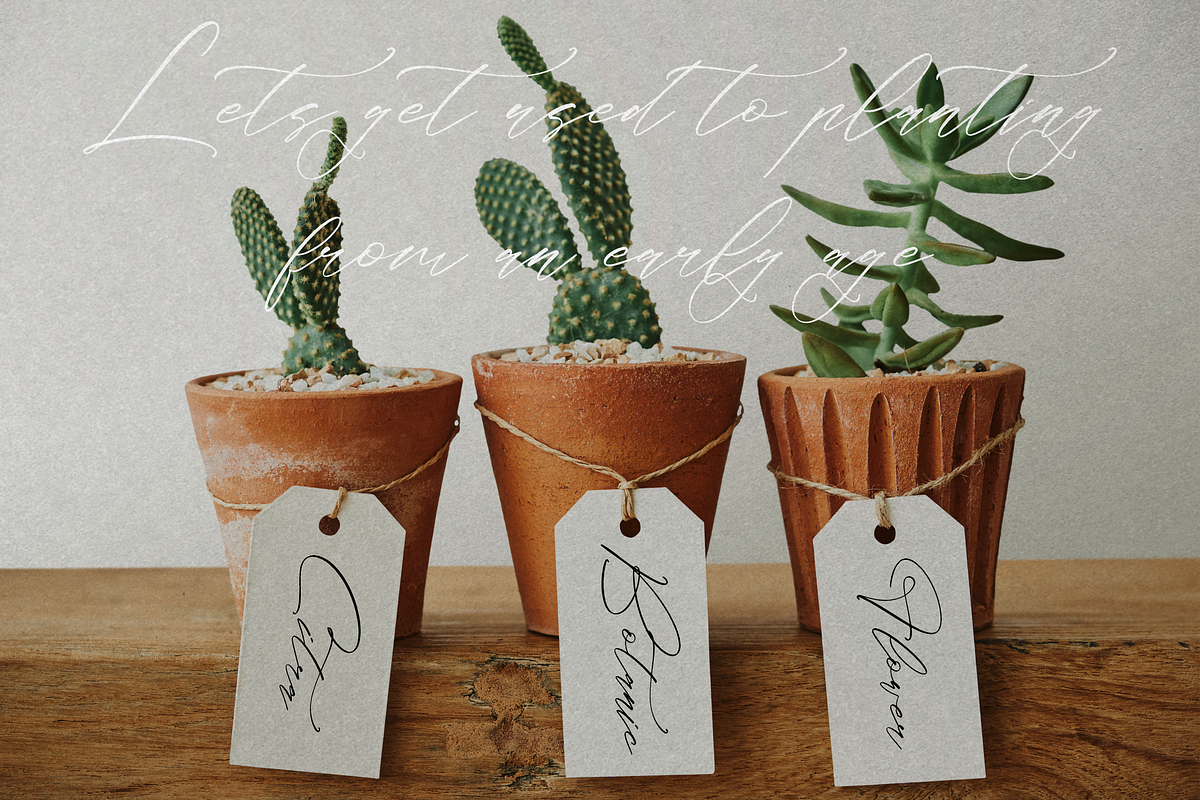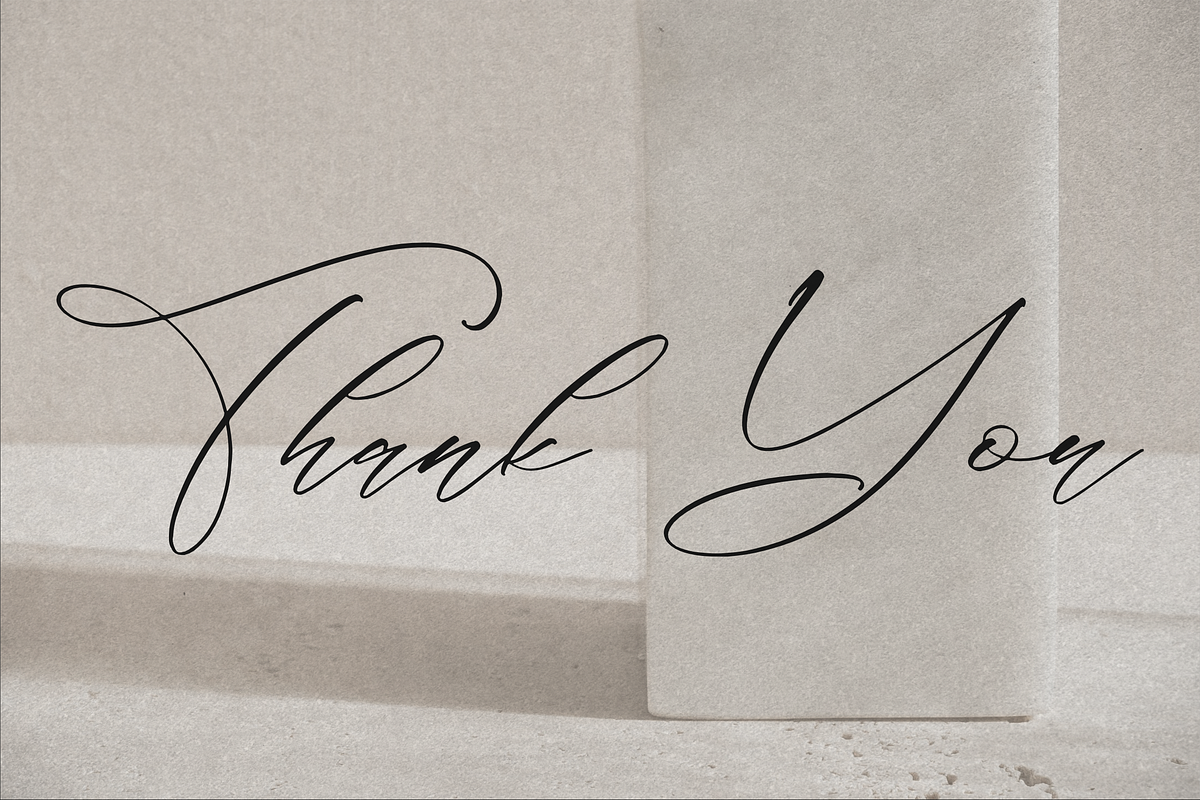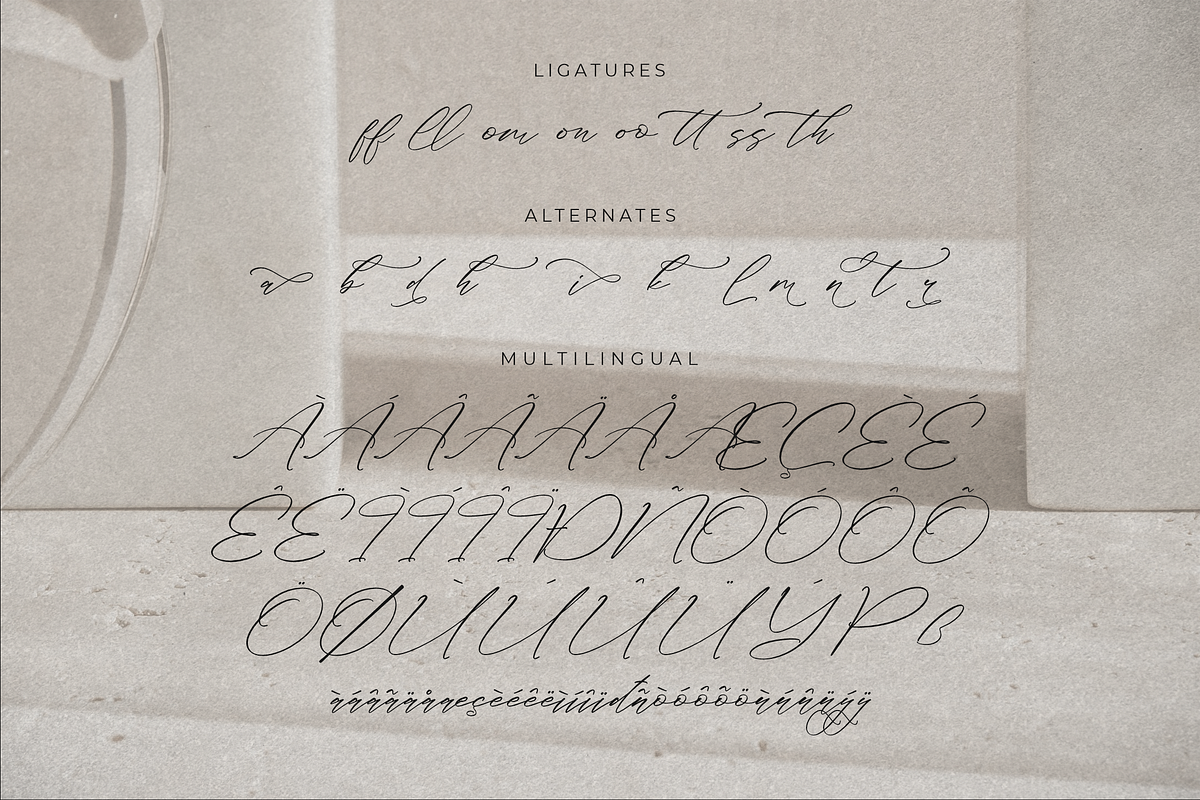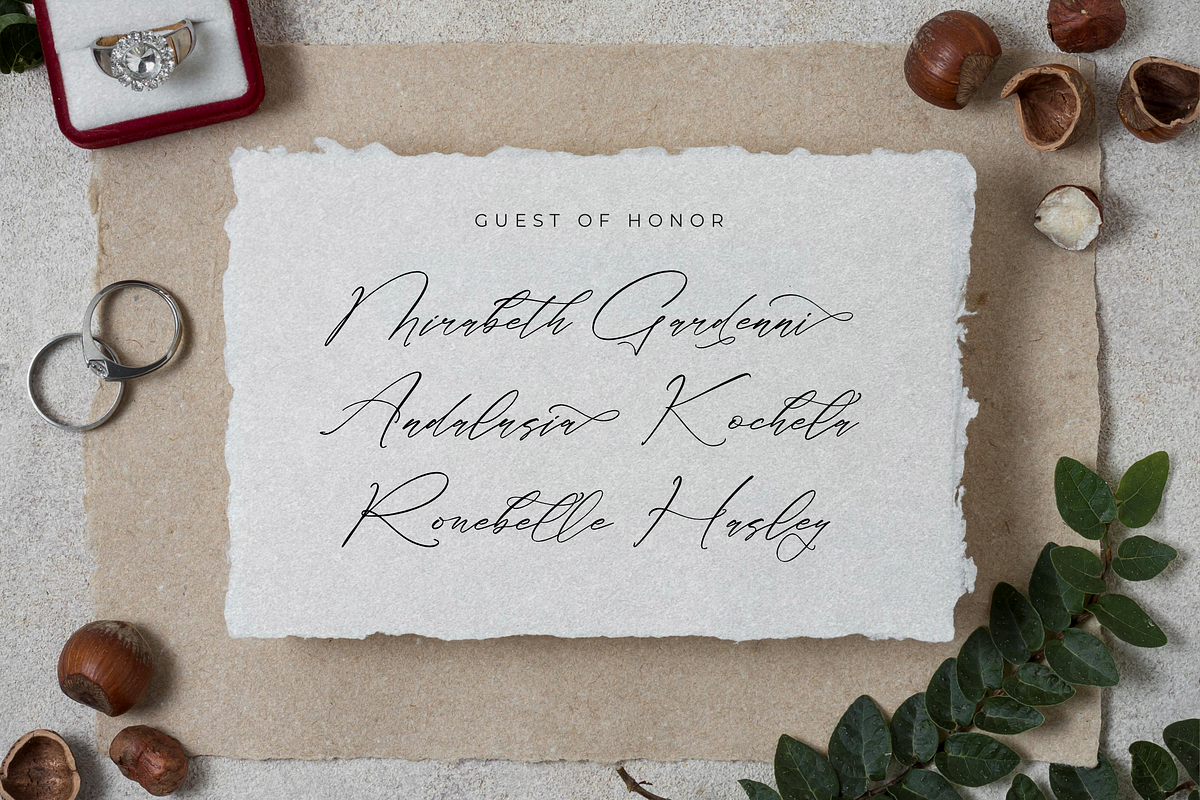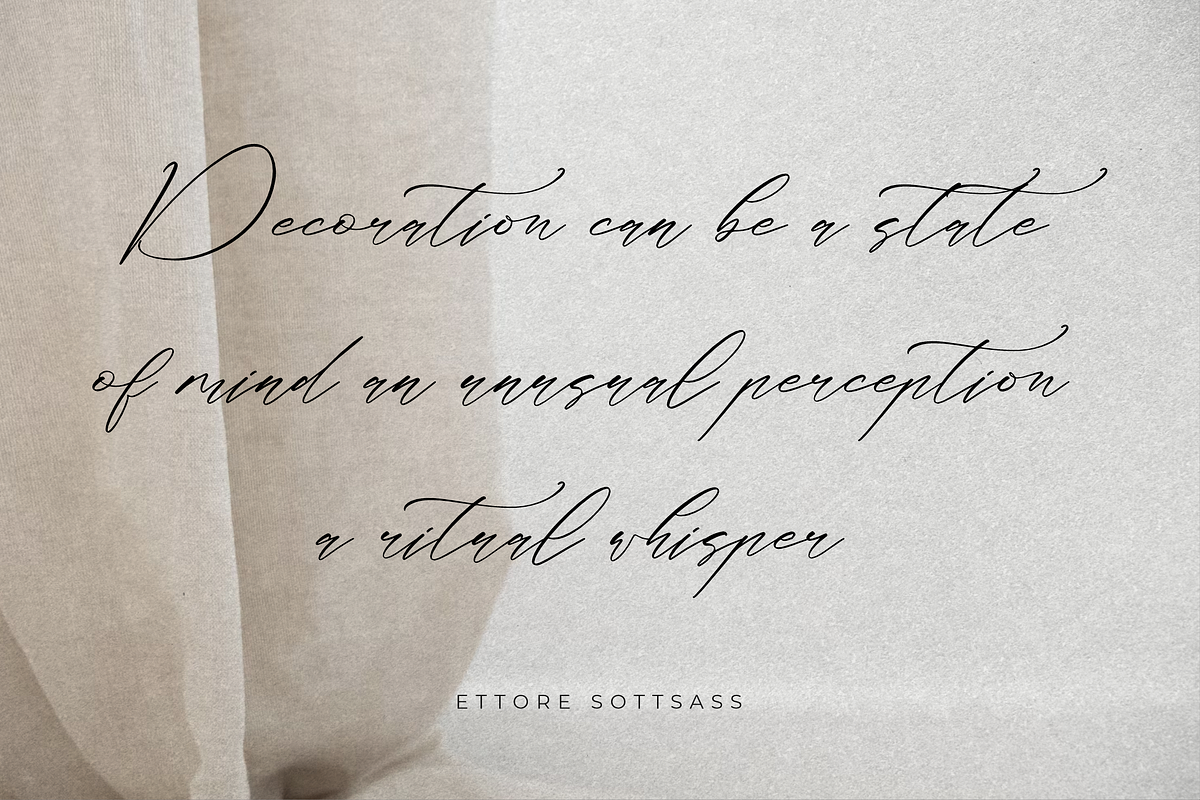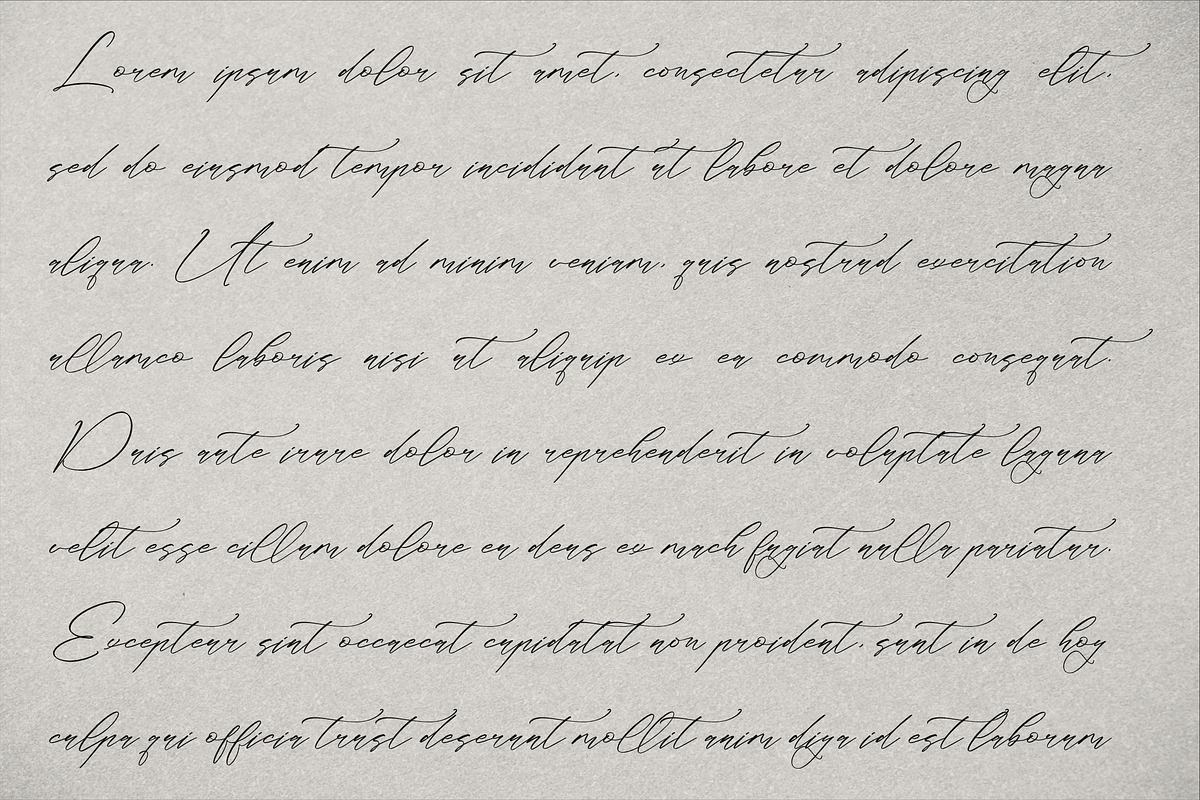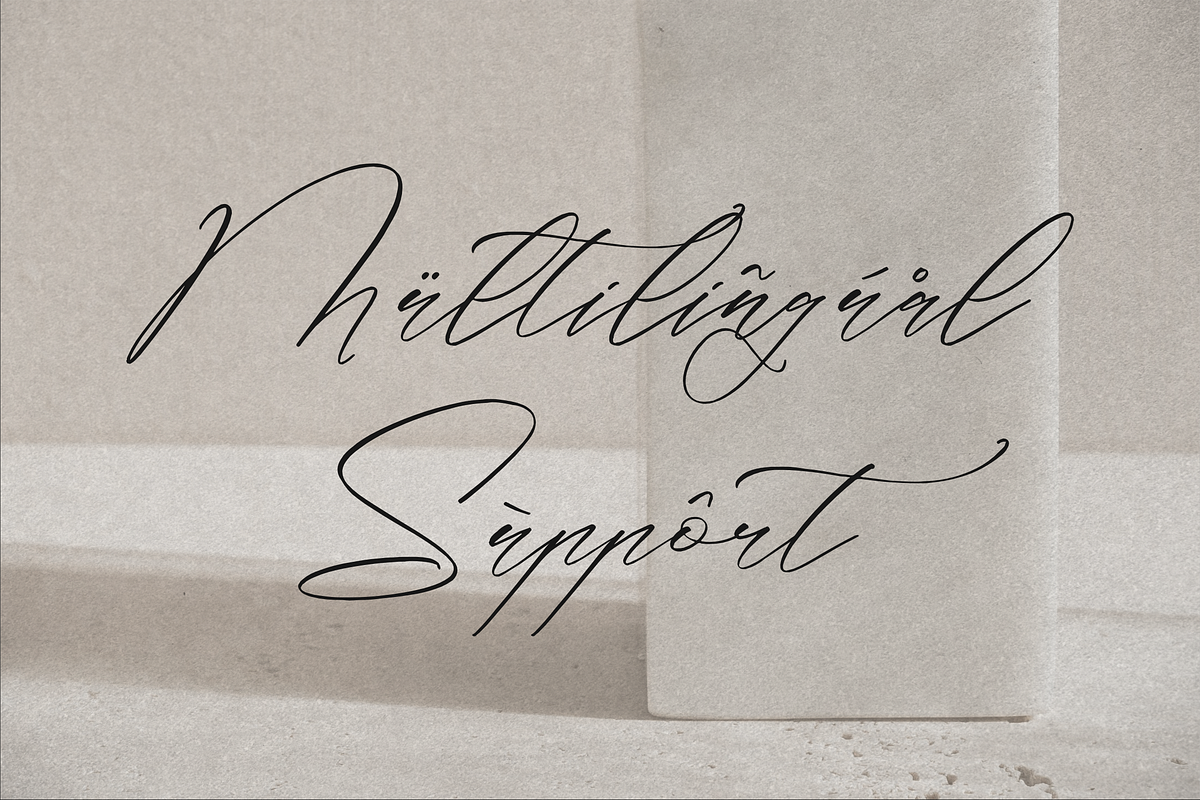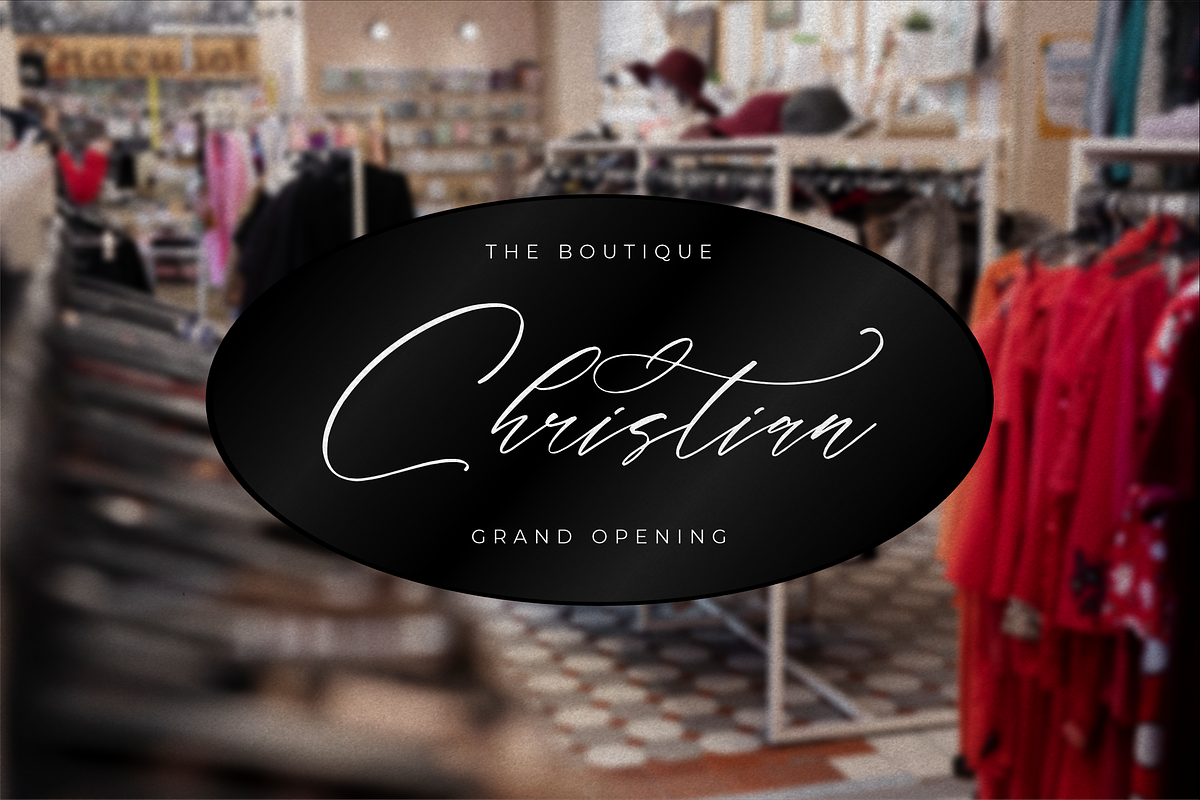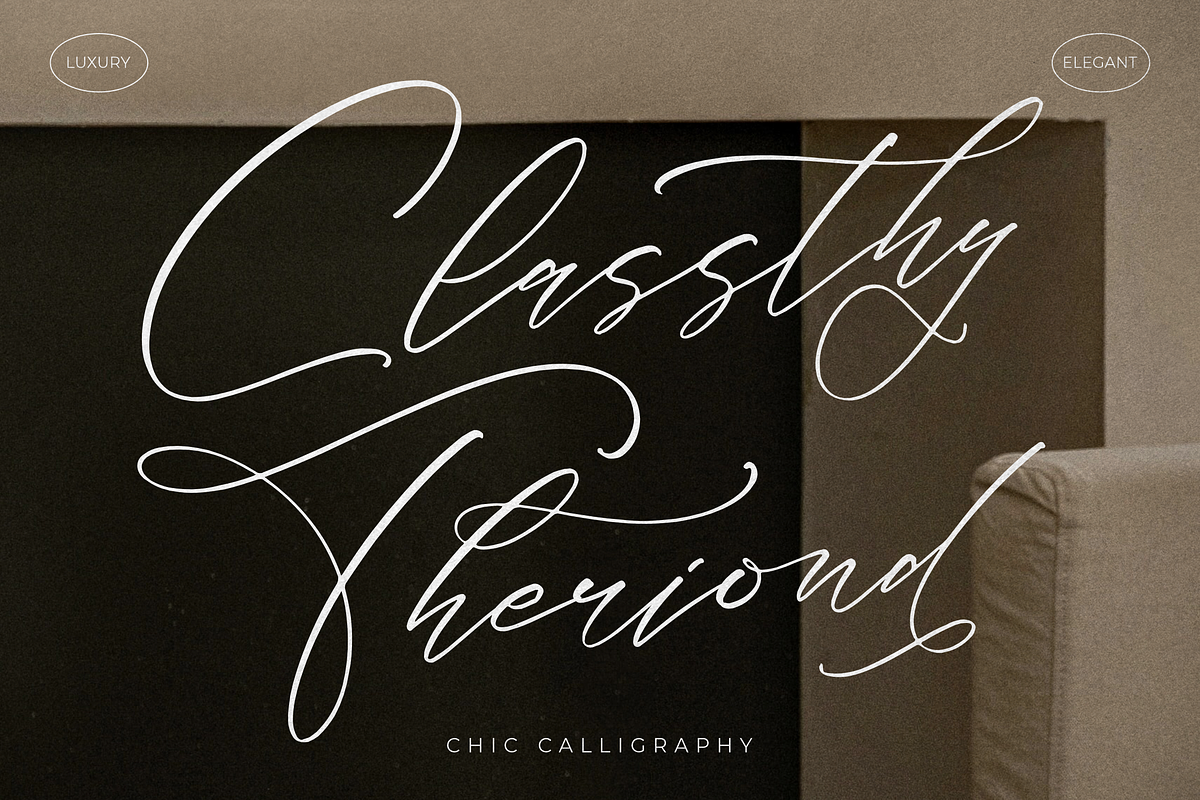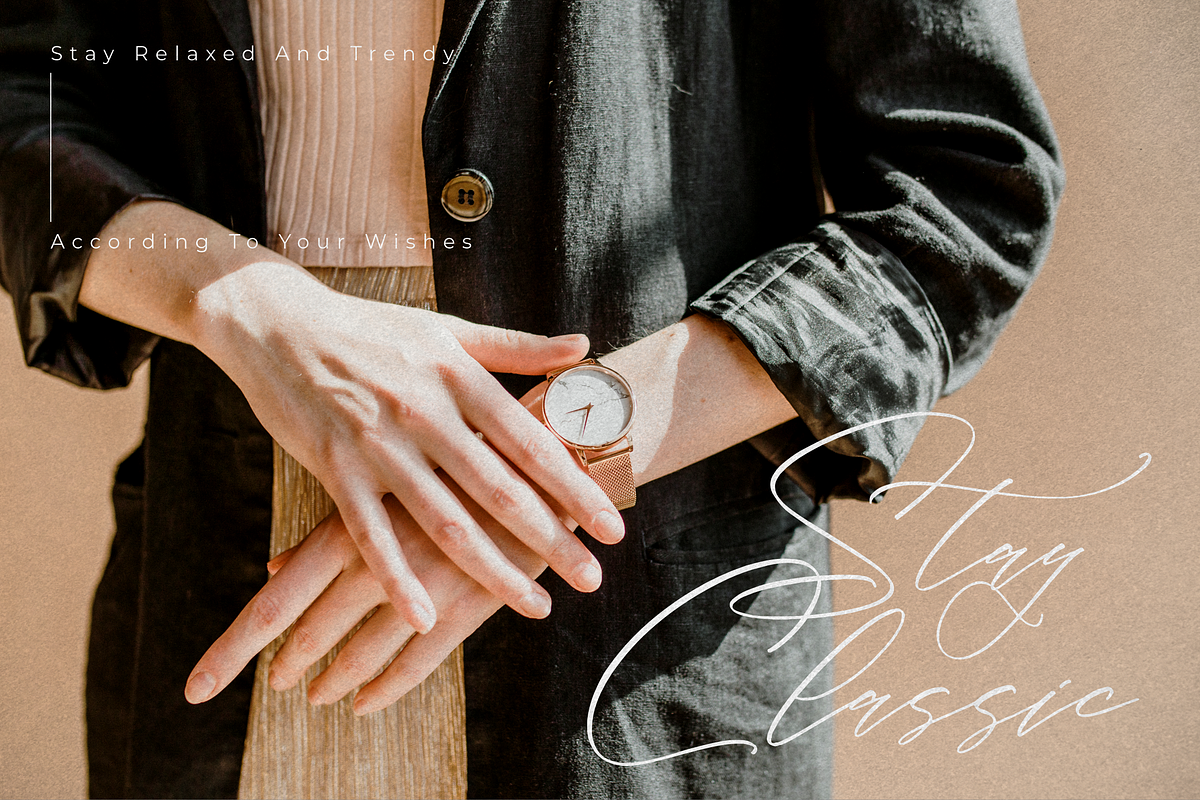
Classthy Theriond Chic Calligraphy
Proudly present Classthy Theriond - Chic Calligraphy , created by Storytype, A luxury script that has own unique style & modern look. This typeface is perfect for an elegant & luxury logo, book or movie title design, fashion brand, magazine, clothes, lettering, quotes, and so much more.